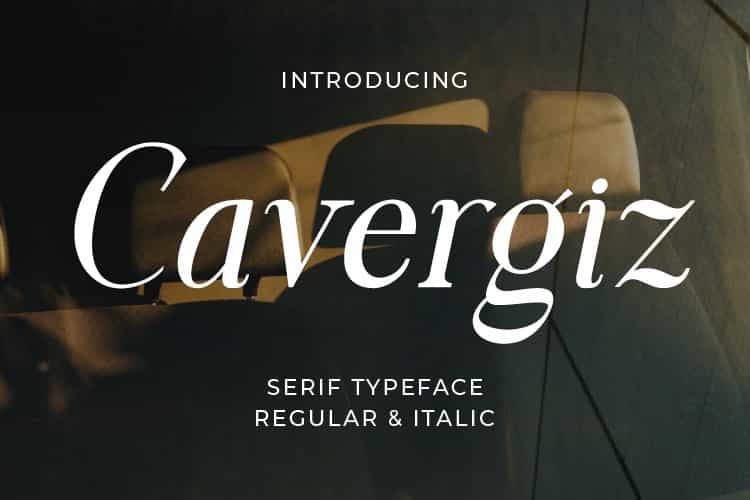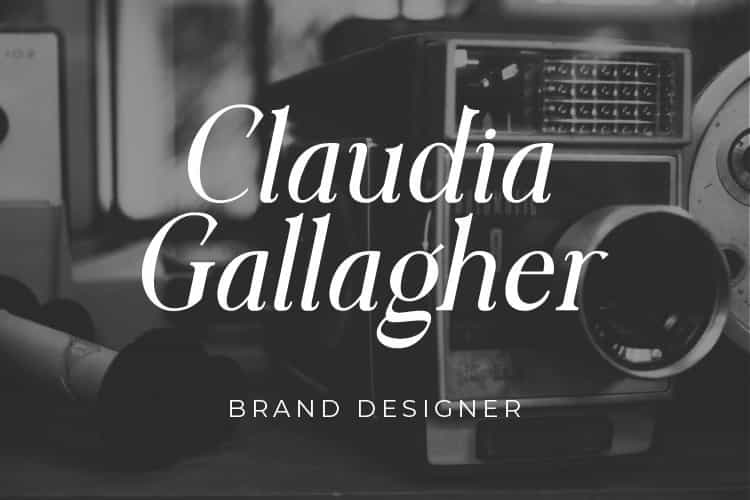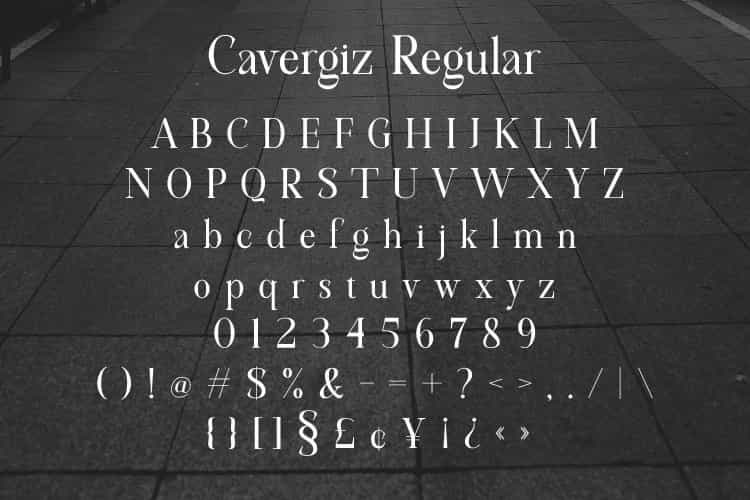
Cavergiz is an eye-catching Display Serif Font with modern flair that comes equipped with PUA encoded characters to bring your creative projects to life. Suitable for the perfect balance between modernity and traditionalism, Cavergiz brings life to any design project with its bold but contemporary strokes.